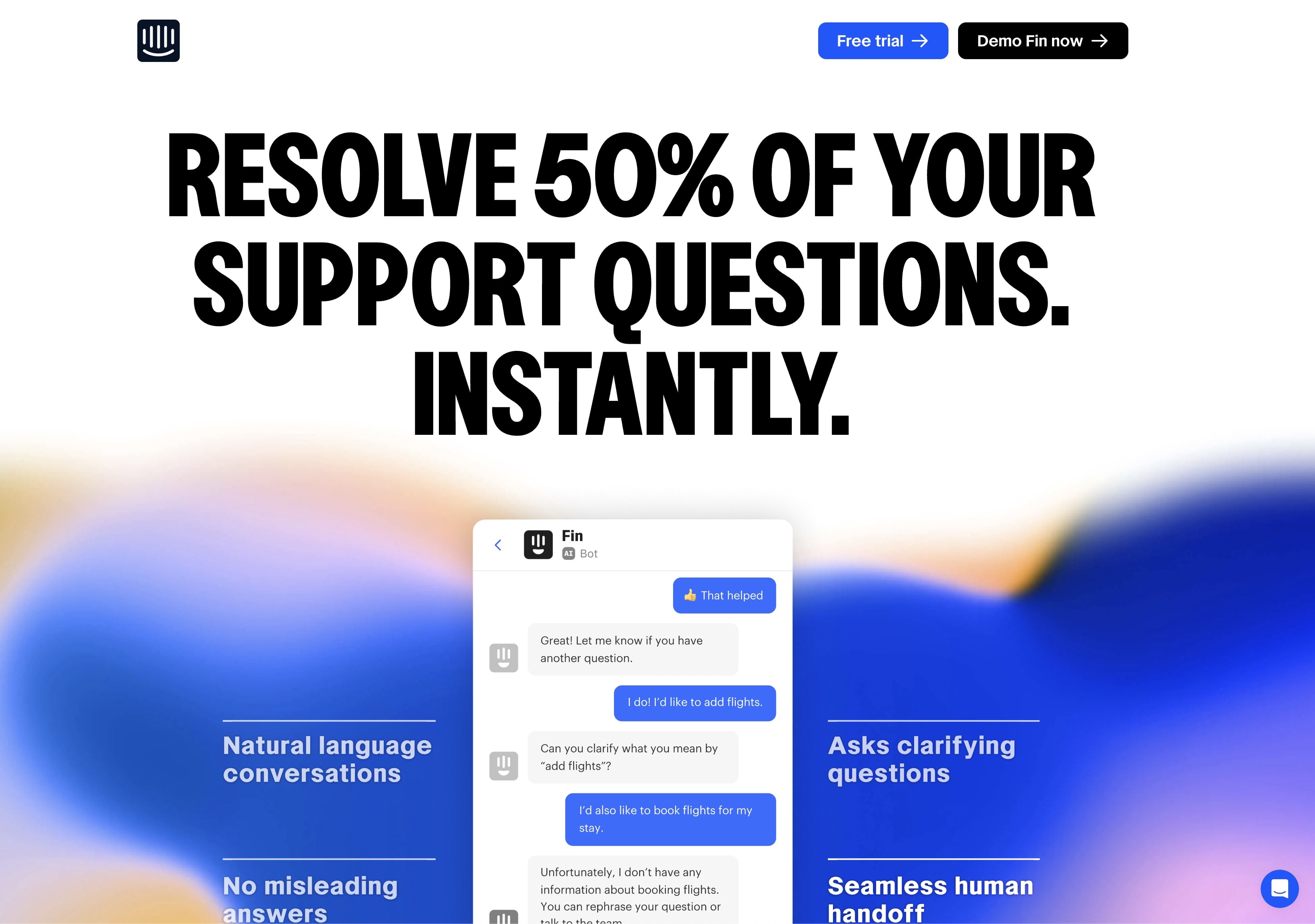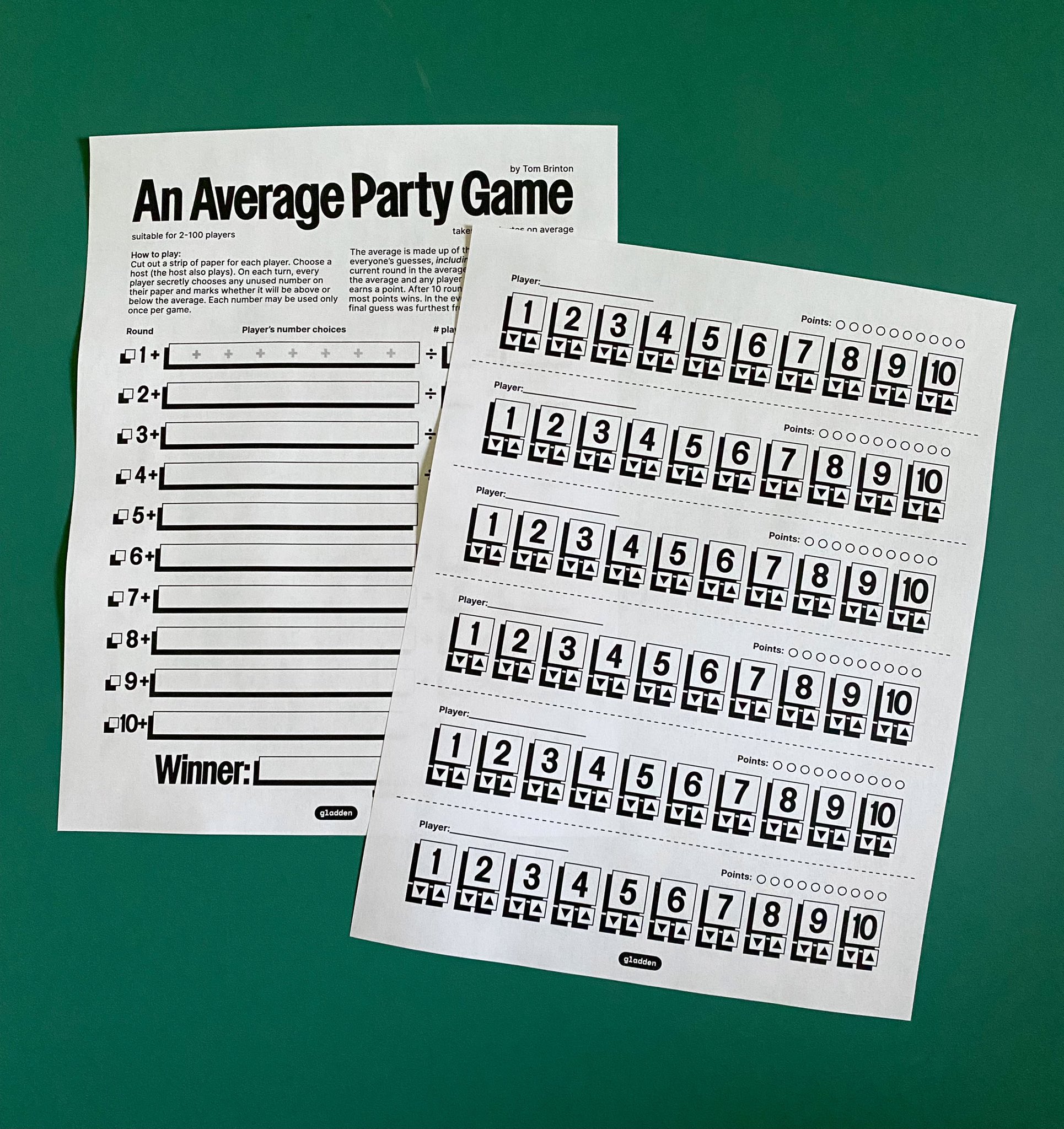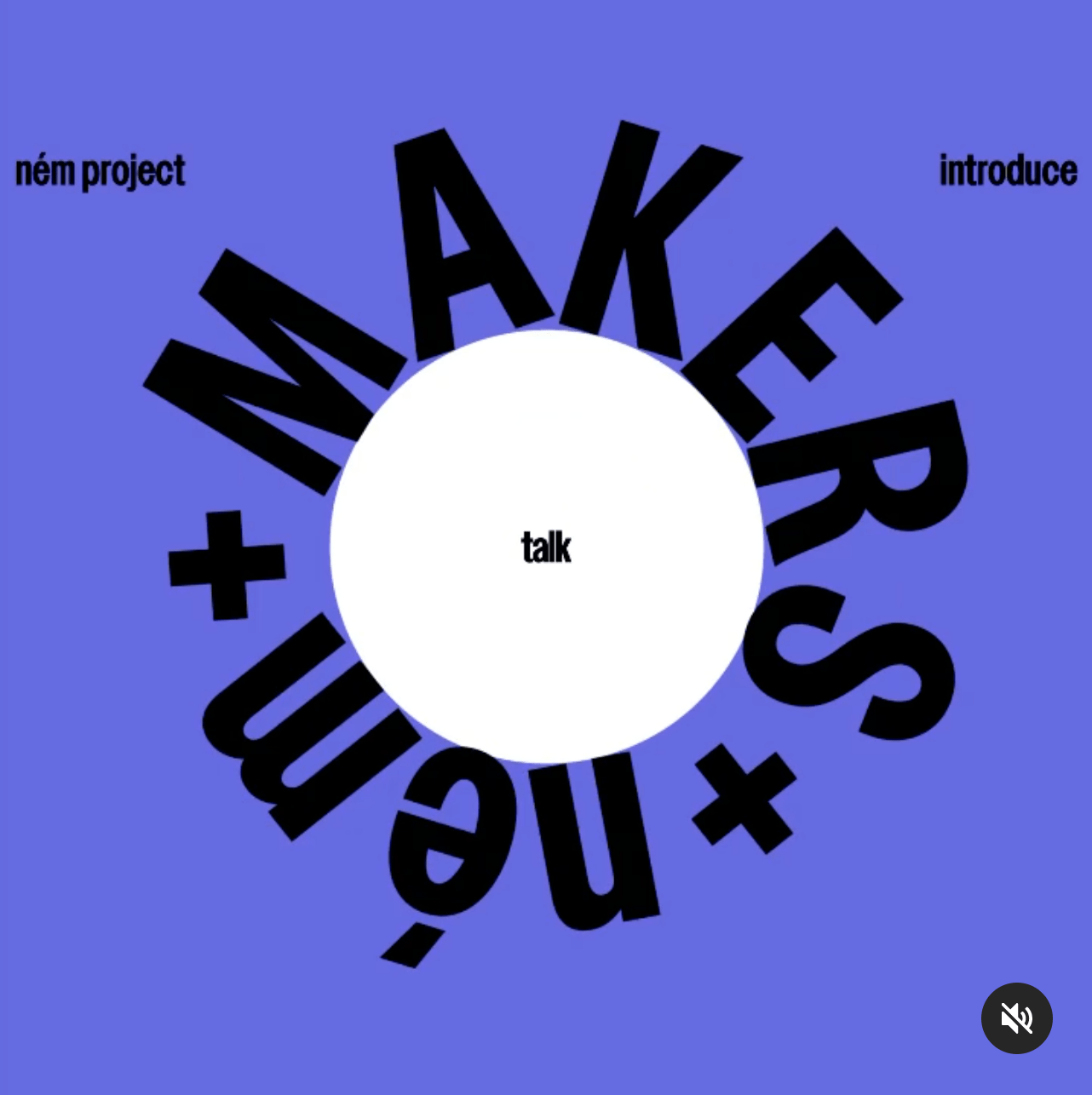
Nudge
With an X-Acto blade, a basic memory of Helvetica Condensed, half a Letraset sheet for Avant Garde Medium Condensed, and 15 minutes, you might create Nudge. That's not how I designed Nudge, but it might be how you would. It’s based on a dog defecation sign composed of hand cut vinyl letters which I saw at Silver Lake Reservoir in LA. The letters on the sign stood out for having uncharacteristically narrow n’s, and nearly closed apertures. Nudge is in that vein. The contrast is low, the tapers are hardly visible. The rules feel a little broken, I’m not keeping track of which.
frac
Fractions
1234/56789
ss01
Round G
Glistening
ss02
Straight Leg R
REFLECTED
ss03
Two story g
Redesigns
ss04
Straight seven
71 + 7 = 78
ss05
One story a
Graveyard
ss06
Tabular one
100 Ways
case
Uppercase styles
HI-FI